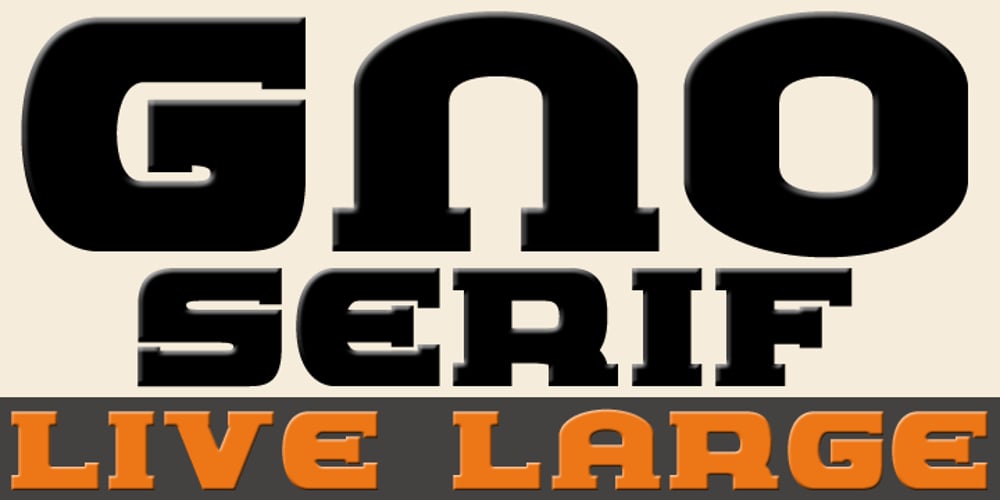
Gno Serif Font Family was designed by Alec Julien and published by Haiku Monkey. Gno Serif contains 2 styles and family package options. Gno Serif, like its sans counterpart, is unashamedly bold. Great for use on posters, in headlines, or wherever you need to make a statement.